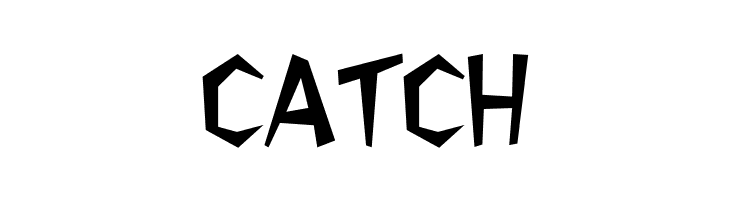
Okuda Bold Italic Font
- Font: Okuda Bold Italic
( Fonts by Laurent Mouy )
A playful, cartoonish font with character-like uppercase and fluid lowercase letters.